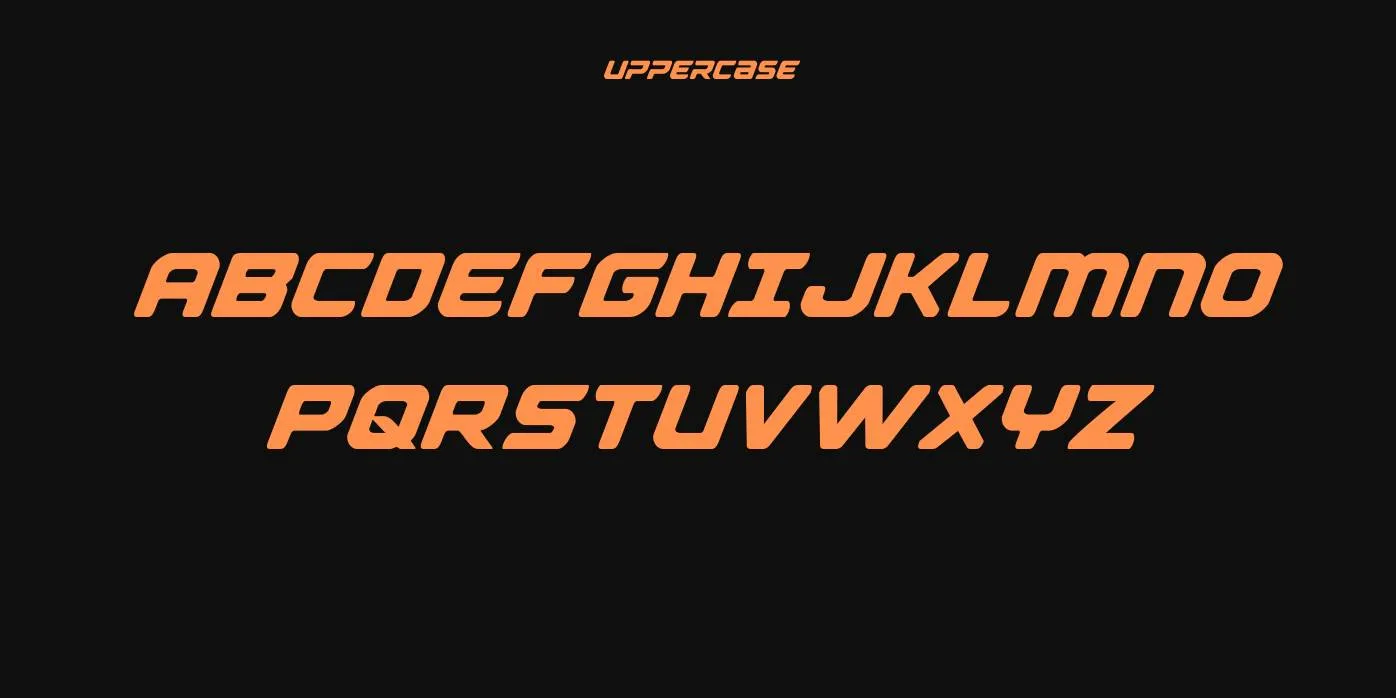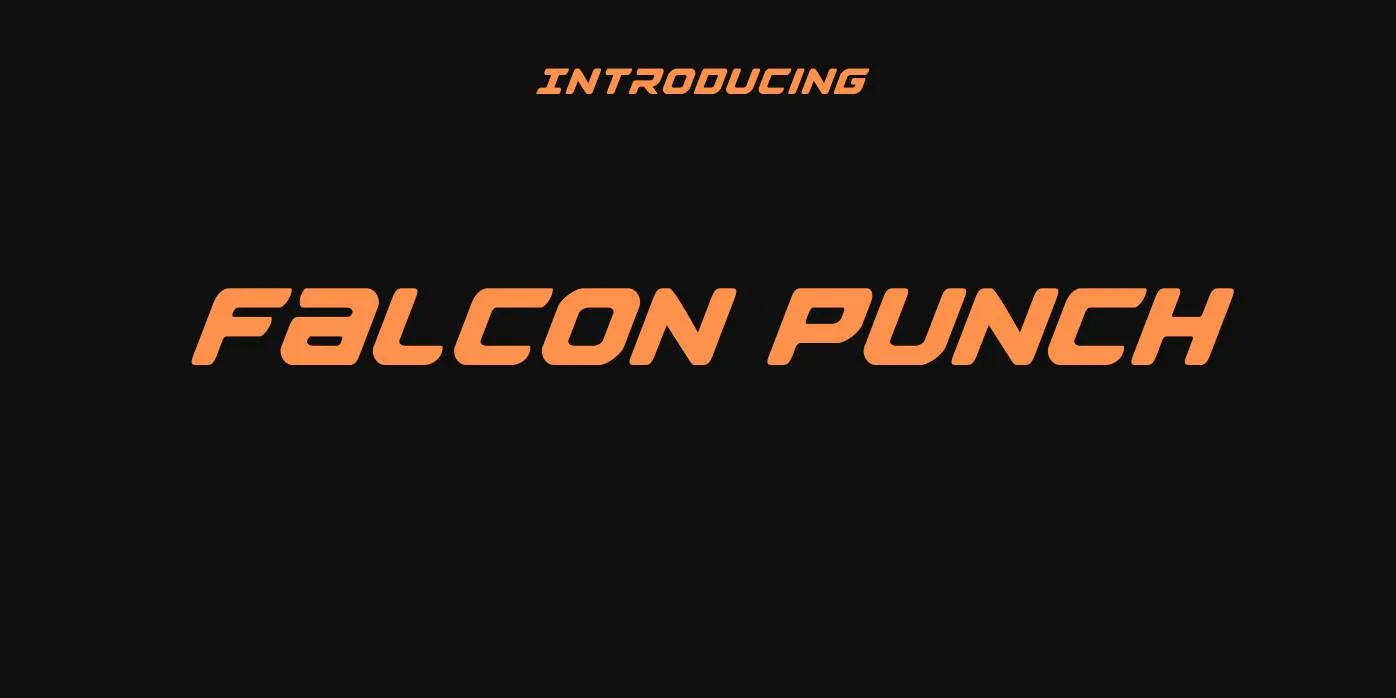
Falcon Punch Font
Iconian Fonts is the designer for this typeface. Falcon Punch Font is a techno type of font that has stunning bold characters. This can make good applications in headlines and titles. Moreover, you can put this typeface in many other type of projects and designs.
The main usage for this typeface is in headlines and titles. If you are interested to use this typeface for commercial designs and projects. An online generator tool for this texture is also stunning and amazing. On the basis of time, you can beneficially use this typeface for many short projects and designs.
The typeface that is best for pairing with this typeface is the adler font. This font has some similarities that makes difference. You can use this typeface in many different types of projects with alder font.